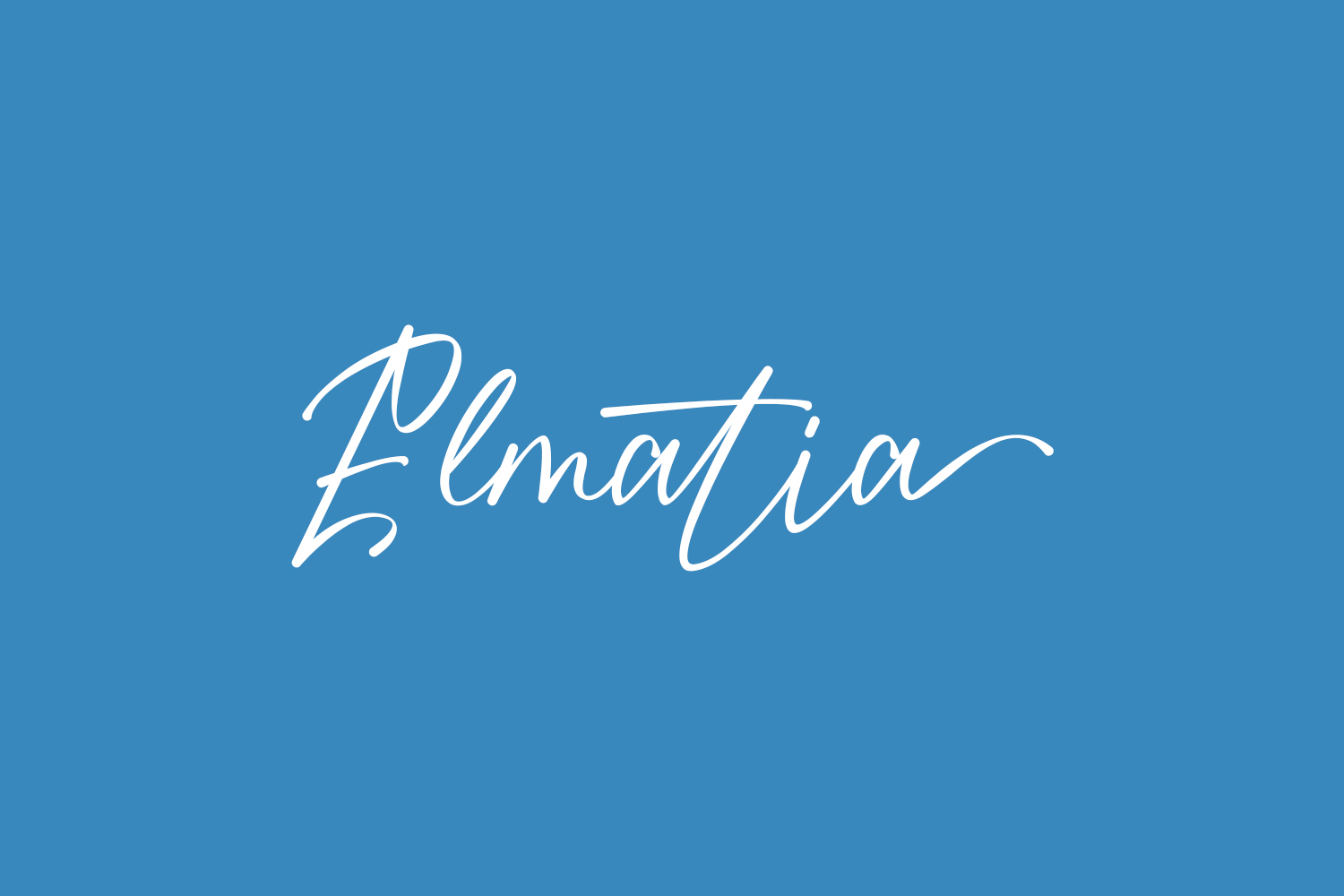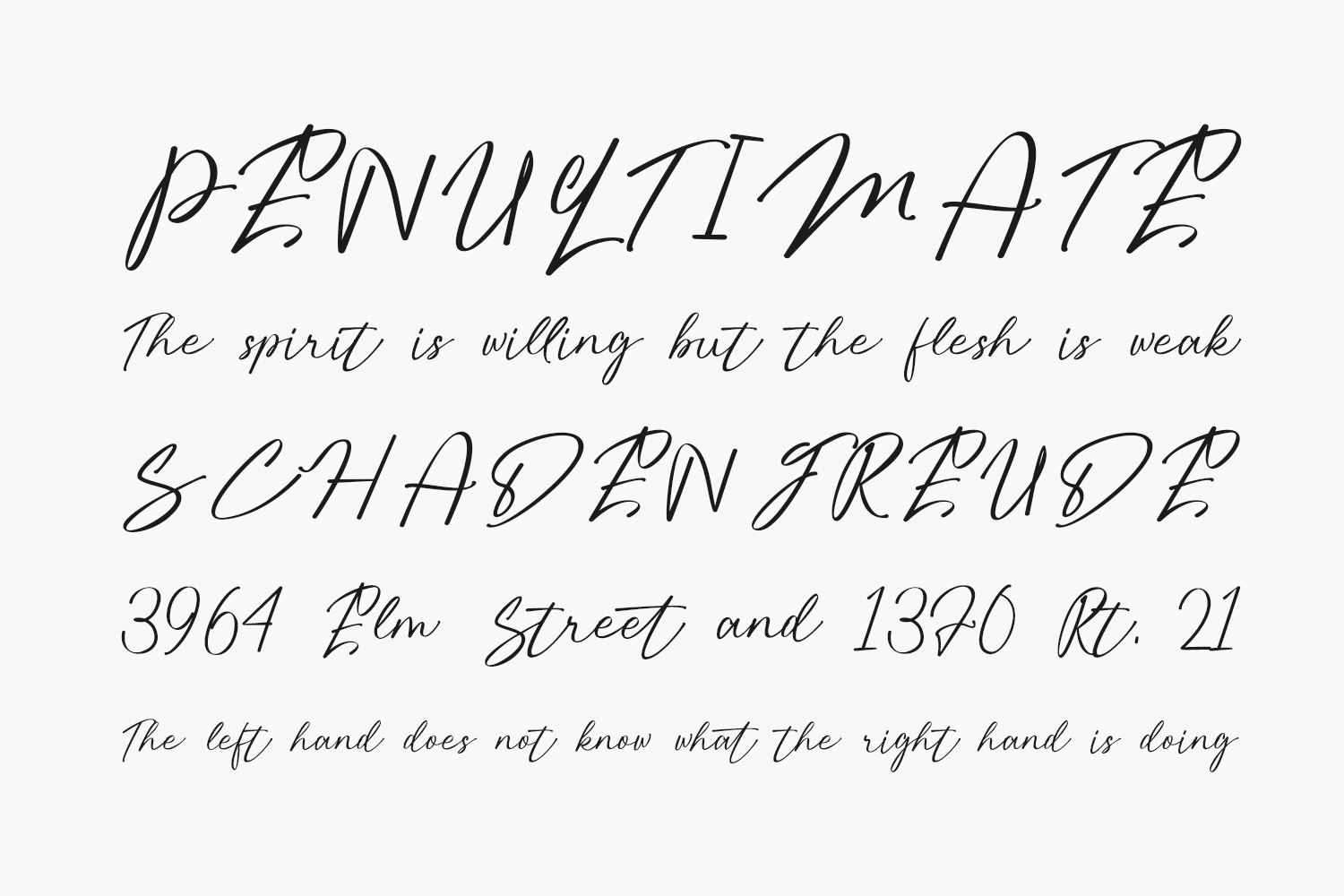
Elmatia Free Font is a sweet, delicate, and friendly script font, that will embellish each of your creations. Elmatia Free Font was designed by GFR Creative and is free for personal use only. Please purchase the full version for commercial use.